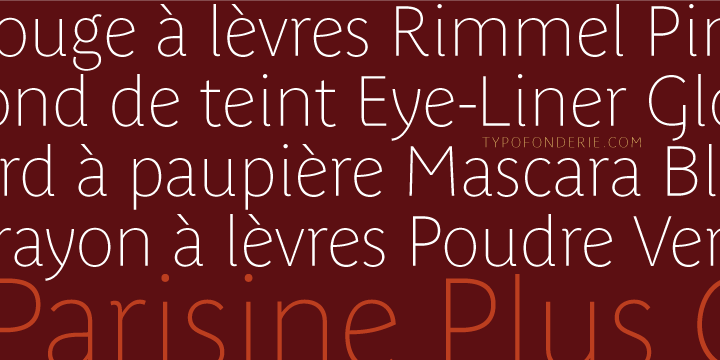
Parisine Plus Std Clair is a set of light variants of the Parisine Plus family.
Parisine Plus Std Clair Regular
Parisine Plus Std Clair Italic
Parisine Plus Std Clair Bold
Parisine Plus Std Clair Bold Italic